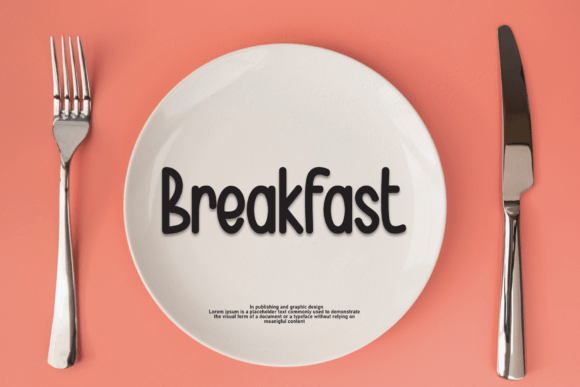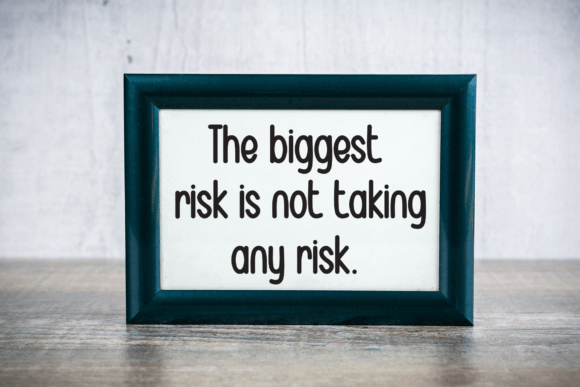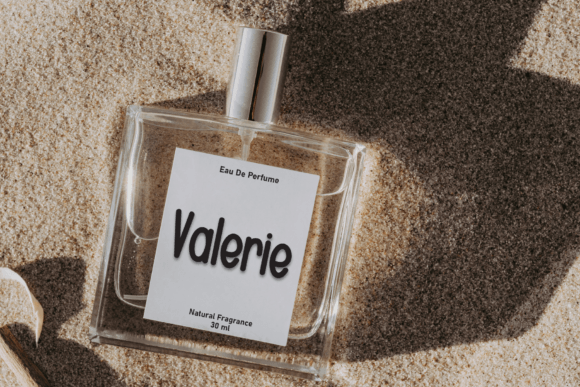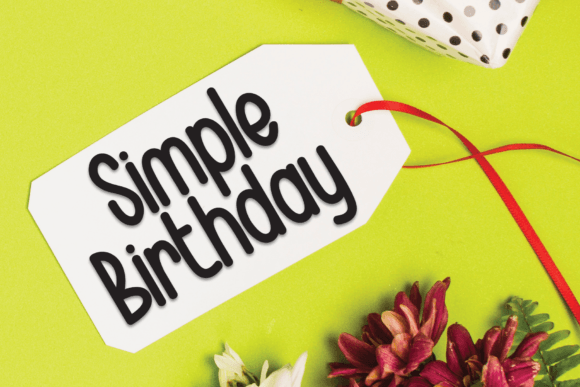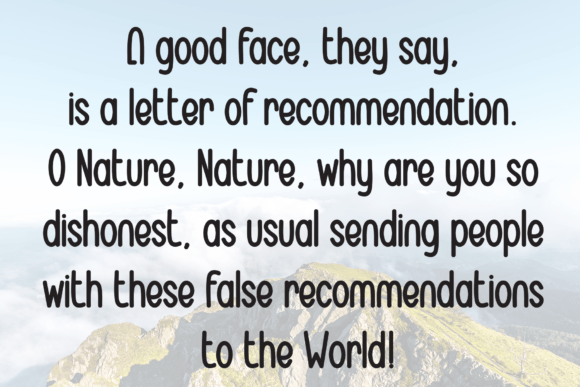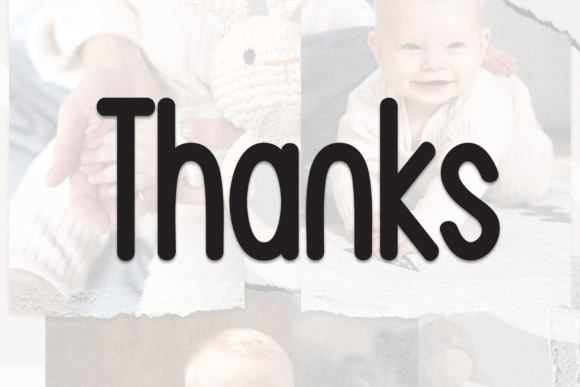
Baby Album Font: The Sweet and Friendly Handwritten Font for Your Designs
Baby Album Font is a delightful and charming handwritten font that has captured the hearts of designers and crafters alike. Its natural and unique style makes it incredibly versatile, suitable for a wide range of designs, from baby-themed projects to wedding and party decorations. In this article, we’ll dive into the world of Baby Album Font, exploring its features, uses, and benefits, as well as providing valuable insights for designers and crafters looking to make the most of this beautiful font.
The Charm of Baby Album Font
Baby Album Font is a sweet and friendly handwritten font that exudes warmth and innocence. Its flowing strokes and rounded edges give it a soft, cuddly feel that’s perfect for creating baby-related designs, such as baby shower invitations, birth announcements, and nursery decor. However, its versatility extends far beyond baby-themed projects, making it an excellent choice for a variety of design applications.
Key Features of Baby Album Font
- Handwritten style: Baby Album Font boasts a beautiful, handwritten style that’s both personal and elegant.
- Natural and unique: Its natural and unique style sets it apart from other fonts, making it perfect for designers looking to add a touch of personality to their work.
- Versatile: Baby Album Font is incredibly versatile, suitable for a wide range of designs, from digital projects to print materials.
- Easy to read: Despite its whimsical nature, Baby Album Font is surprisingly easy to read, making it perfect for body text and headlines.
Uses for Baby Album Font
The possibilities are endless when it comes to using Baby Album Font. Here are a few ideas to get you started:
- Baby-themed projects: Baby shower invitations, birth announcements, nursery decor, and baby blankets are just a few examples of projects that Baby Album Font is perfectly suited for.
- Wedding and party decorations: This font’s sweet and friendly style makes it an excellent choice for wedding and party decorations, such as invitations, banners, and garlands.
- Digital projects: Baby Album Font is perfect for digital projects, such as social media graphics, blog headers, and website designs.
- Print materials: This font is also suitable for print materials, such as brochures, flyers, and posters.
To make the most of Baby Album Font, here are a few tips to keep in mind:
- Experiment with colors: Baby Album Font looks beautiful in a variety of colors, so don’t be afraid to experiment and find the perfect hue for your design.
- Mix and match: Try pairing Baby Album Font with other fonts to create a unique and visually appealing design.
- Pay attention to spacing: As with any font, make sure to adjust the spacing to ensure that your text is easy to read and visually appealing.
- Get creative: The only limit to using Baby Album Font is your imagination, so don’t be afraid to get creative and try new things!
Baby Album Font is a sweet and friendly handwritten font that’s perfect for designers and crafters looking to add a touch of personality to their work. Its natural and unique style makes it incredibly versatile, suitable for a wide range of designs, from baby-themed projects to wedding and party decorations. With its ease of use, beautiful style, and endless possibilities, Baby Album Font is sure to become a favorite in your design arsenal.